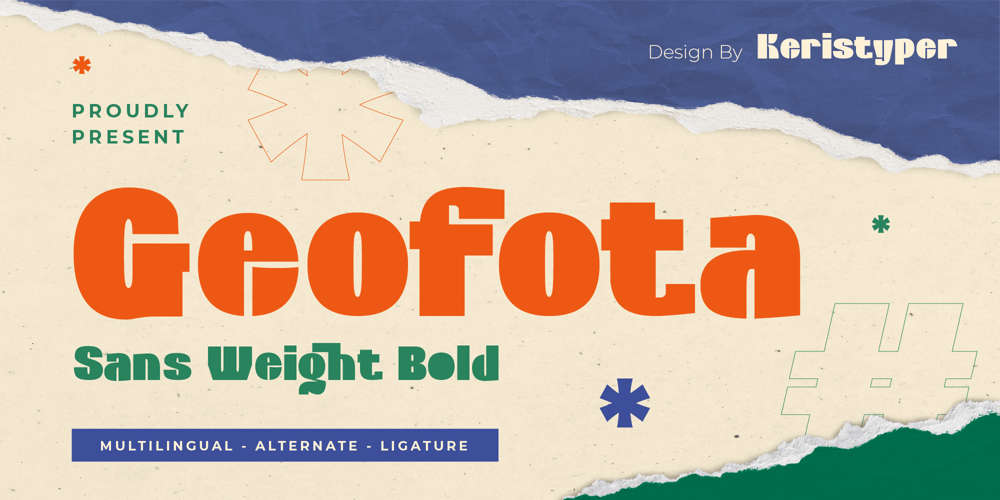
Geofota Font Family was designed by Tezar Tantular and published by Keristyper Studio. Geofota contains 1 styles and family package options. Geofota is a bold and heavy modern style font inspired by urban street culture. This font is good for logo design, Social media, Movie Titles, Books Titles, short text even long text letters, and good for your secondary text font with sans or serif.Featured: Standard Uppercase & Lowercase Numeral & Punctuation Multilingual : ä ö ü Ä Ö Ü ß ¿ ¡ Alternate & Ligature PUA encoded We recommend programs that support the OpenType feature and the Glyphs panel such as Adobe applications or Corel Draw. so you can use all the variations of the glyphs.Hope you enjoy our fonts!